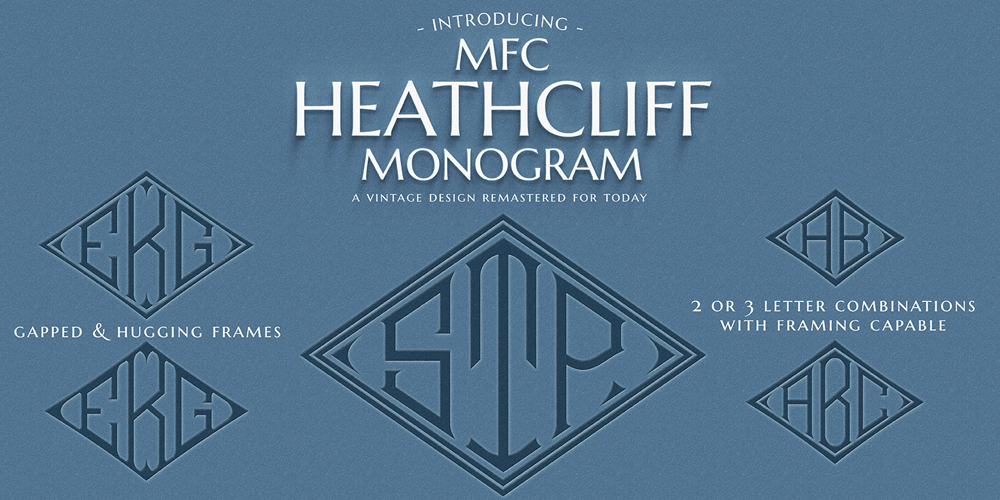
MFC Heathcliff Monogram Font Family was designed by Jim Lyles, Brian J. Bonislawsky and published by Monogram Fonts Co.. MFC Heathcliff Monogram contains 1 styles and family package options. The source of inspiration for MFC Heathcliff Monogram is a crudely hand drawn vintage monogram transfer depicting a wider format diamond monogram. We revised numerous letters for better clarity and a more vintage industrial vibe. MFC Heathcliff Monogram is capable of traditional two and three letter format monograms, as well as gapped and hugging framing options for each. Numerals 1-9 and 0 on the keyboard for the 2 letter framing options typed before the letters, and use the shift key on the numerals for the 3 letter framing options type before the letters. It’s just that easy. Looking for an MC in one of the letter slots? Just type mc on either side of MC in the middle to get it. Otherwise, just type a lowercase, a Capital, and then a lowercase to build your monogram.As one of the most popular shape based formats for monogramming since the beginning, it must be true that diamonds are forever.